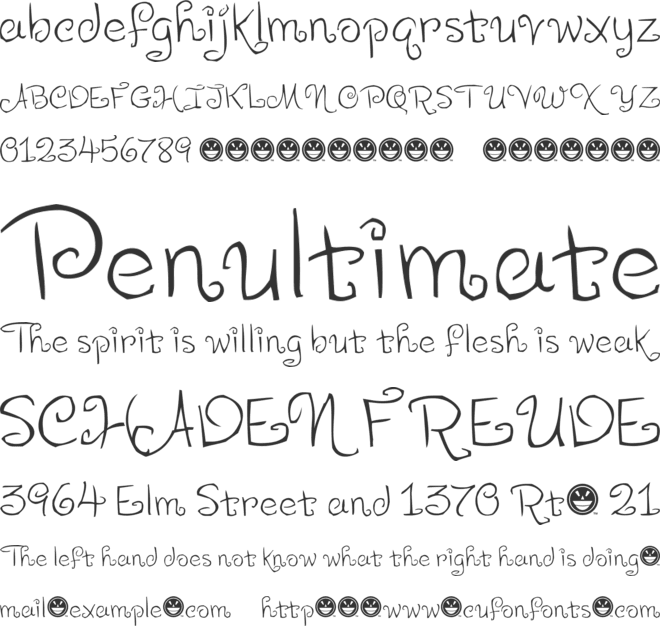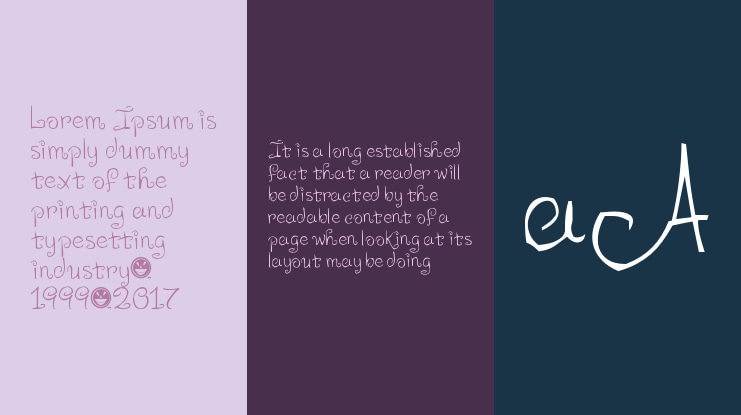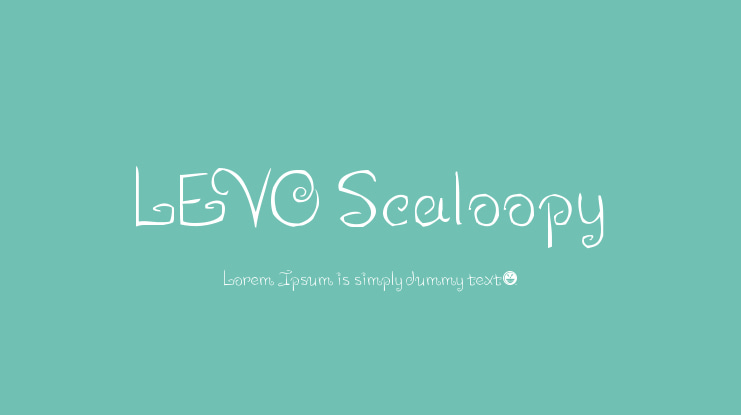
LEVO Scaloopy Font
LEVO Scaloopy by LeVonna R. Adkins
Can't make up your mind whether you want scallops or loops in your scripty, handwritten font? The Fontry's LEVO Scaloopy provides both, for that artsy, edgy feeling. This freebie version of Scaloopy is limited to numbers and alphabet. Explore your character map for the hidden goodies lurking in the extended range of letters.